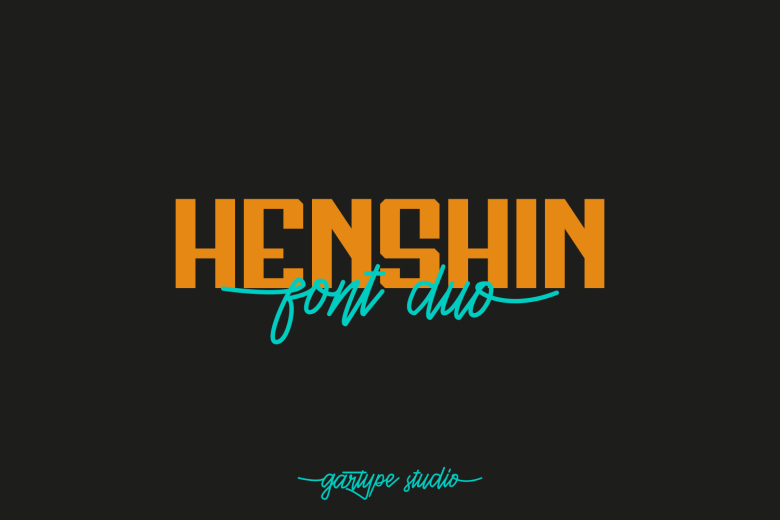
Henshin Font Duo
Hi Font Lovers! This is a modern sans serif and script font. Introducing Henshin Typeface. Henshin designed and shared by Gartype Studio. Henshin duo is a combination of sans and script fonts that combine elements of classical, elegant, bold, and flexible.Henshin is suitable for advertise your products such as food,the menu at the cafe, restaurant and more. Henshin is also very suitable for the mix for wedding invitations, music albums, music concerts, magazine covers, website text, quote, etc.